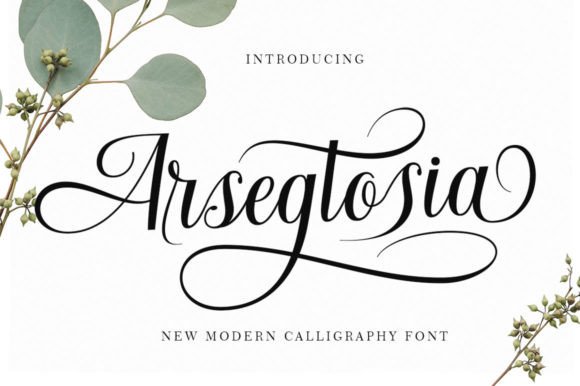
The Designer’s Delight: Arsegtosia Font
I still remember the frustration of working on a project, hours spent searching for the perfect font, only to end up with something that just didn’t quite fit. It was as if the design gods were testing my patience. But then, I stumbled upon Arsegtosia Script, and my design woes disappeared like magic ✨. This modern calligraphic font has been a game-changer for me, and I’m excited to share its awesomeness with you.
- ✨ Beautifully crafted: Arsegtosia Script boasts a casual, pretty design with a lovely stroke that adds a touch of elegance to any project.
- ✅ Versatile: This font is perfect for a wide range of applications, including logos, product packaging, wedding invitations, branding, headlines, signage, labels, signatures, book covers, posters, quotes, and more.
- 🔍 Feature-rich: Arsegtosia Script includes OpenType language styling changes, bindings, and international support for most Western languages.
- 💻 PUA encoded: With PUA encoding, accessing the amazing glyphs and ligatures is a breeze!
The Designer Inspiration Behind Arsegtosia Script
Arsegtosia Script was crafted with passion and dedication by a talented designer who aimed to create a modern, calligraphic font that exudes elegance and sophistication. The designer’s inspiration came from the beauty of handwritten scripts and the need for a versatile font that can be used in various creative projects.
| Font Name | Arsegtosia Font |
| Author | madjack.font |
| What is Arsegtosia Script? | Arsegtosia Script is a modern calligraphic font designed for creative projects, including logos, product packaging, wedding invitations, and more. |
| Is Arsegtosia Script easy to read? | Yes, Arsegtosia Script is designed to be legible and easy to read, making it perfect for body text and headlines. |